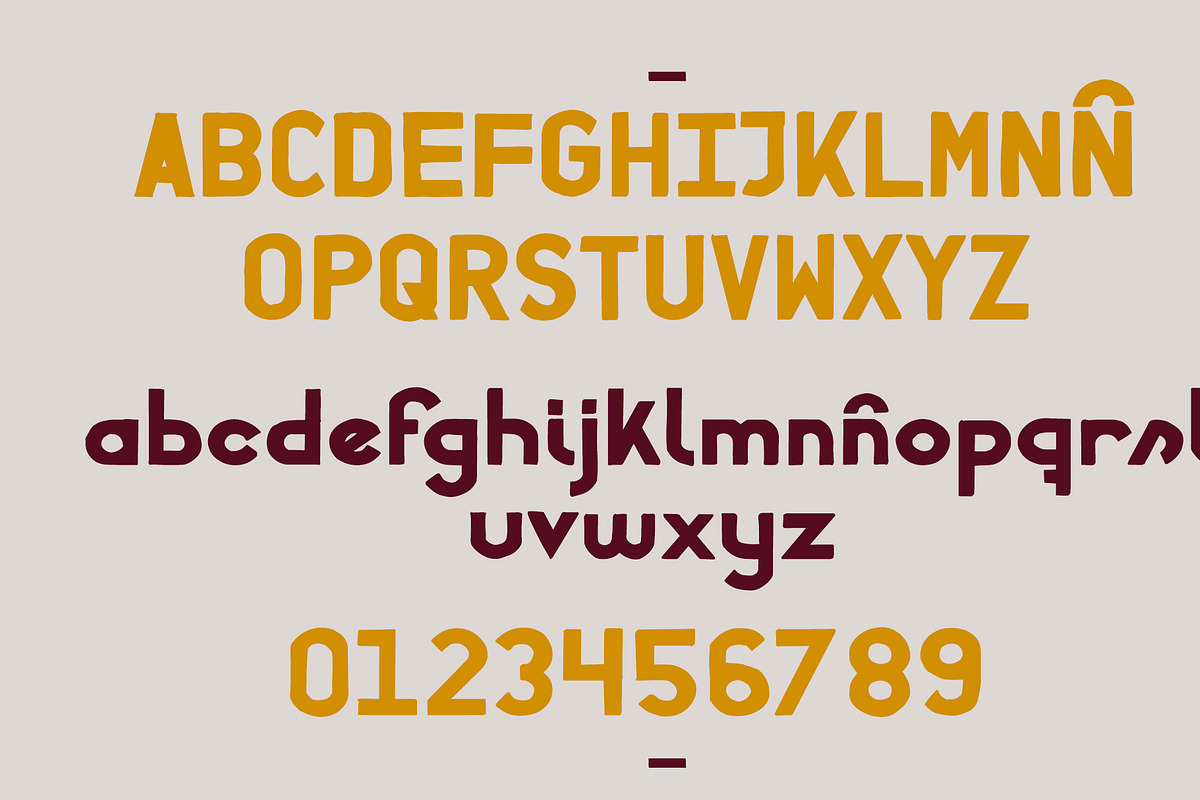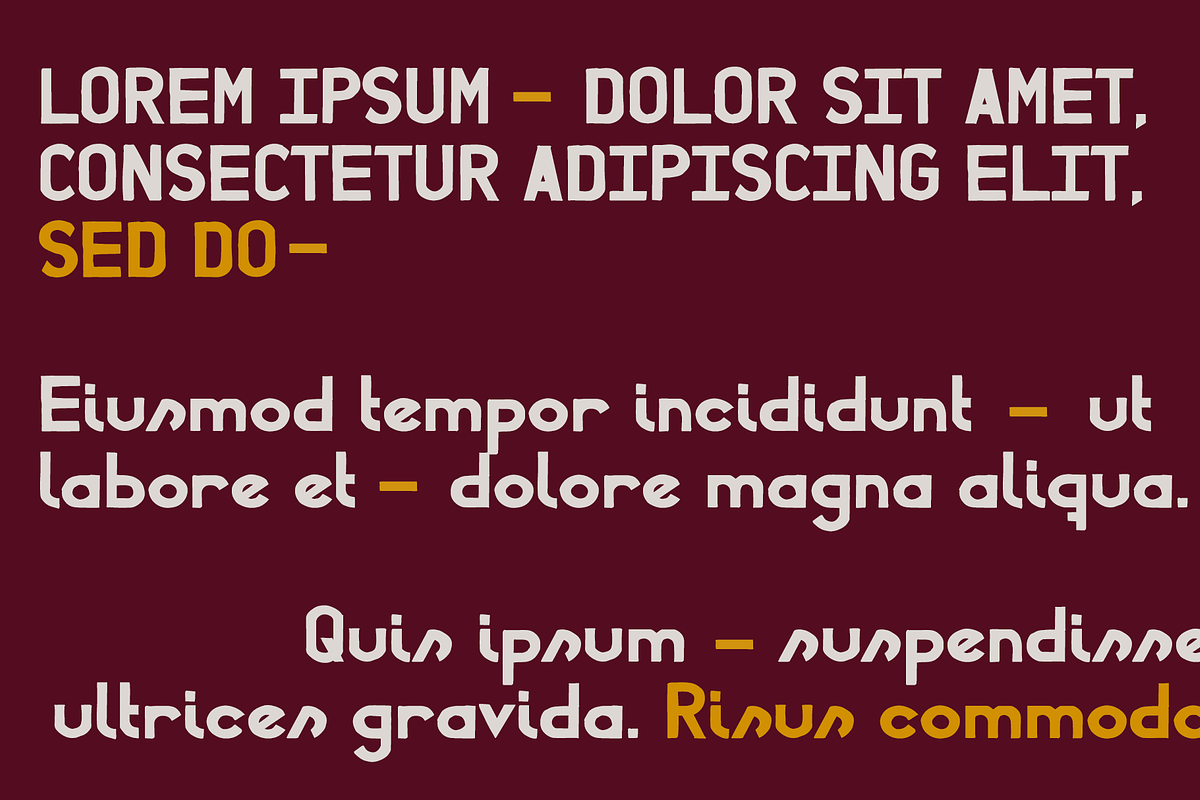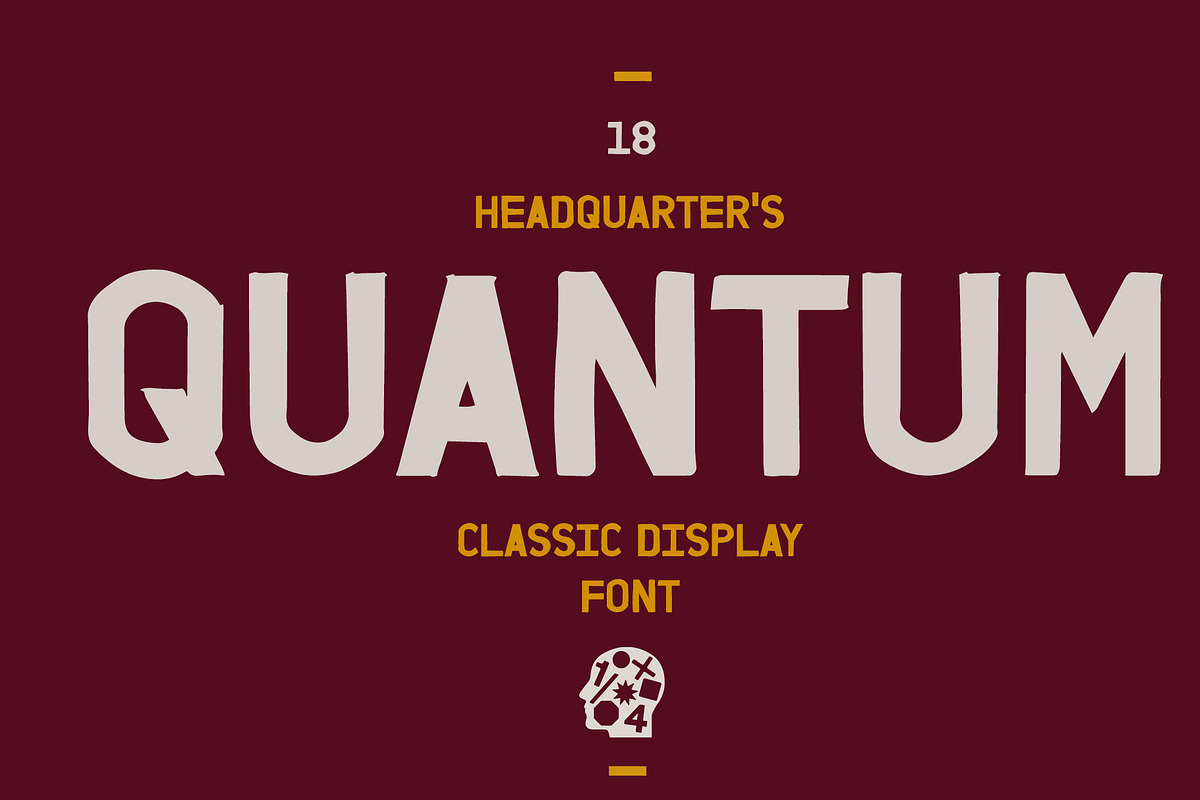
QUANTUM
"Quantum" is a revolutionary display font that effortlessly blends futuristic flair with sleek sophistication. Designed for impact, its sharp lines and dynamic angles evoke a sense of advanced technology and modern innovation. Perfect for branding, headlines, and digital media, Quantum stands out in any context, providing a touch of elegance to your creative projects.
Its versatility makes it ideal for tech startups, gaming interfaces, and avant-garde advertising, turning ordinary text into a captivating visual experience. Elevate your design to the next dimension with Quantum – where typography meets tomorrow.